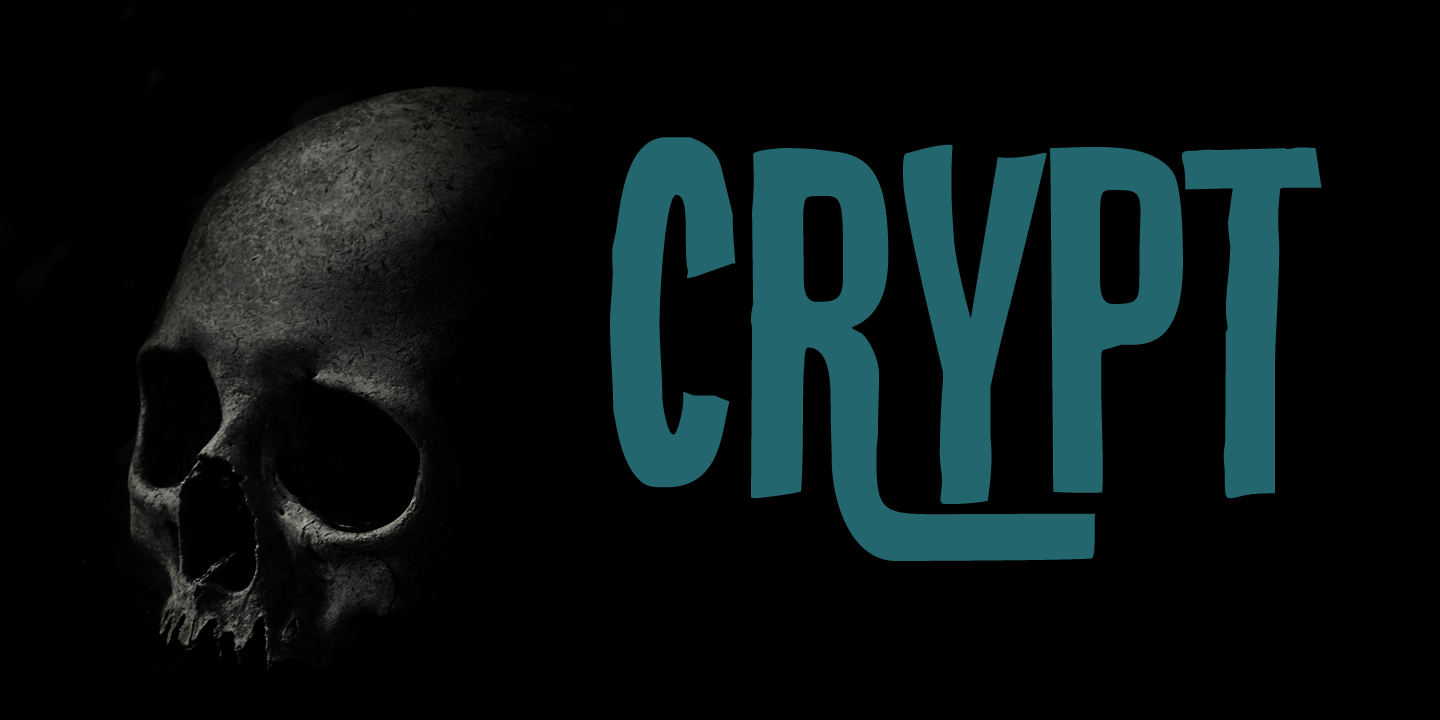
Crypt Font is perfect for cryptocurrency exchange branding, blockchain technology marketing, digital security communications, cryptographic software interfaces, cybersecurity firm materials, and mysterious technological projects. Its enigmatic character makes it ideal for crypto trading platforms, blockchain developers, digital encryption companies, privacy-focused tech firms, and any application requiring secretive typography that conveys digital mystery, cryptographic security, and the underground essence of decentralized finance culture.
Crypt Font is exciting because it embodies the enigmatic nature and technological sophistication of cryptographic systems through mysteriously crafted letterforms that evoke the hidden complexity of encrypted communications. Its cryptic proportions and coded aesthetic reflect the secretive world of digital currencies and the revolutionary potential of blockchain technology, making it perfect for organizations operating at the cutting edge of financial technology. The font's encrypted character transforms ordinary text into coded messages of technological revolution.
Crypt Font family includes cryptographically-inspired weight variations typically featuring Light, Regular, Medium, and Bold options with mysterious styling that maintains digital authenticity. The family often incorporates blockchain symbols, cryptocurrency icons, and encryption-related characters designed for fintech applications, providing designers with comprehensive tools for creating authentic, crypto-focused typographic compositions.
When selecting cryptocurrency typography solutions, Crypt Font Free Download represents an exceptional choice for blockchain and fintech projects. This mysterious typeface brings instant crypto authenticity to any design, making it invaluable for cryptocurrency exchanges, blockchain startups, and cybersecurity companies requiring technological credibility. Whether you're developing crypto trading platform branding, creating blockchain educational materials, or designing digital security campaigns, Crypt Font provides the cryptographic mystery and technological sophistication essential for navigating the encrypted world of digital finance in today's blockchain-driven economy.